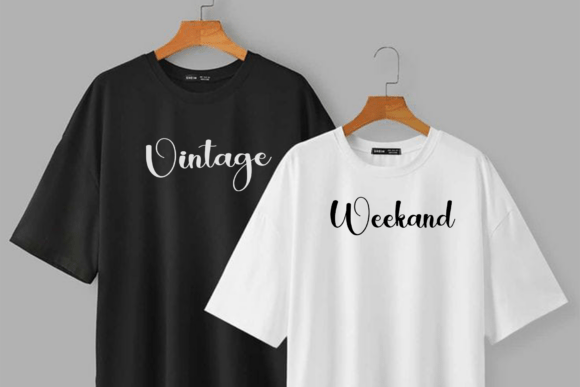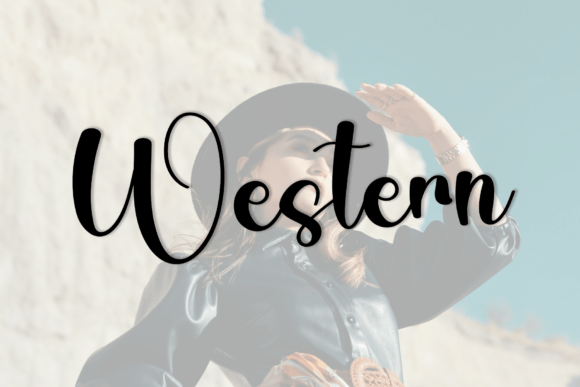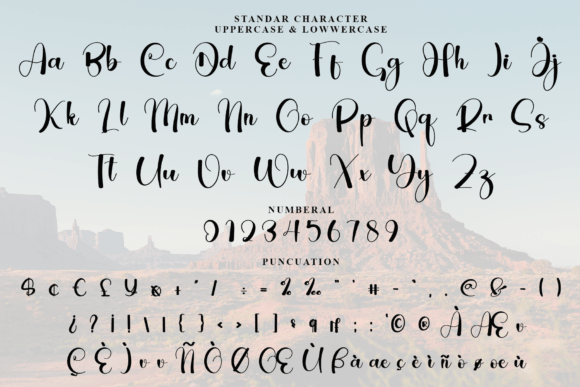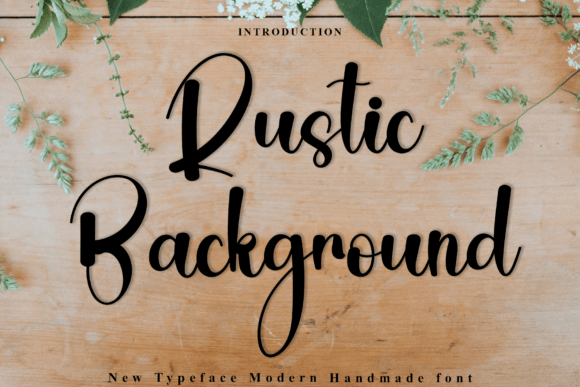
Introduction to Rustic Background Font
Rustic Background is a trendy handwritten font with a contemporary atmosphere and impeccable form, inspired by timeless classic calligraphy.
It will add elegance and class to any of your design projects .
Key Features of Rustic Background Font
Why Choose Rustic Background Font?
Rustic Background Font offers exceptional quality and versatility, making it a valuable addition to your design toolkit. Whether you’re creating for personal projects or commercial use, Rustic Background Font delivers professional results.